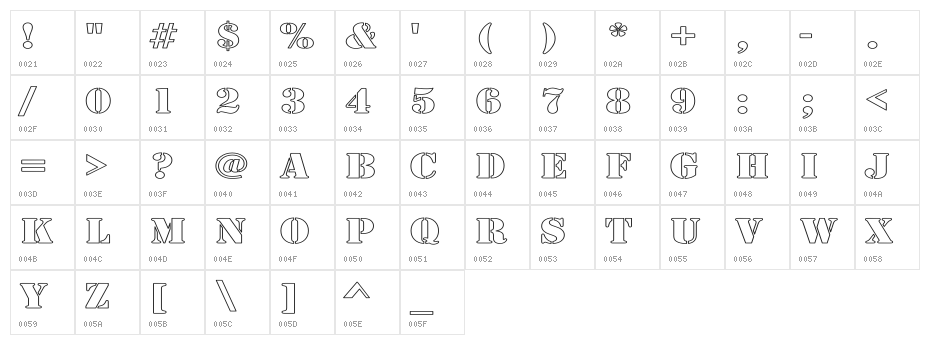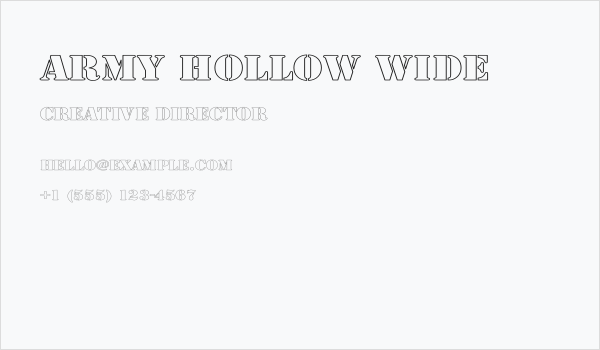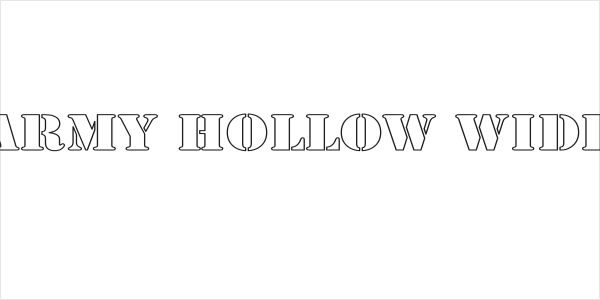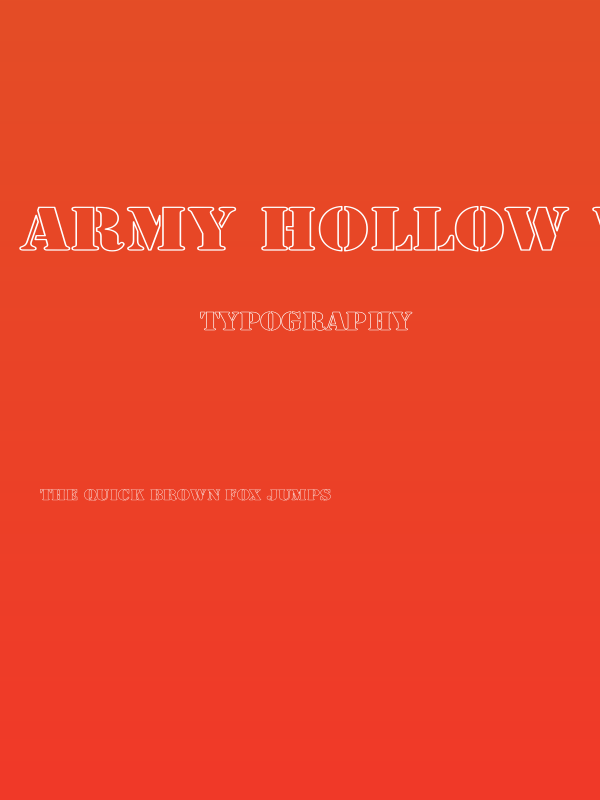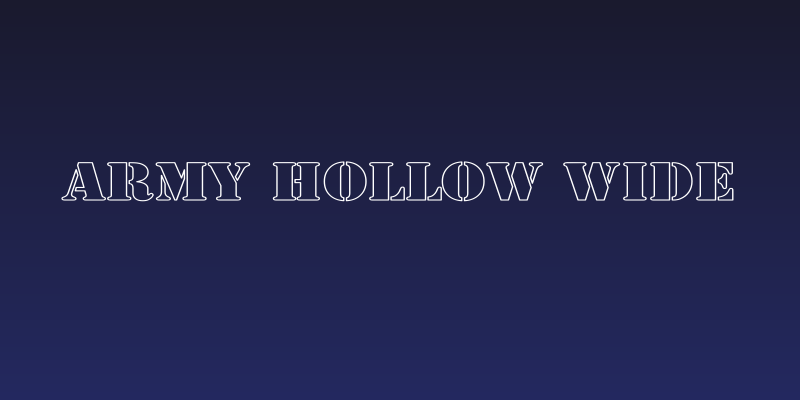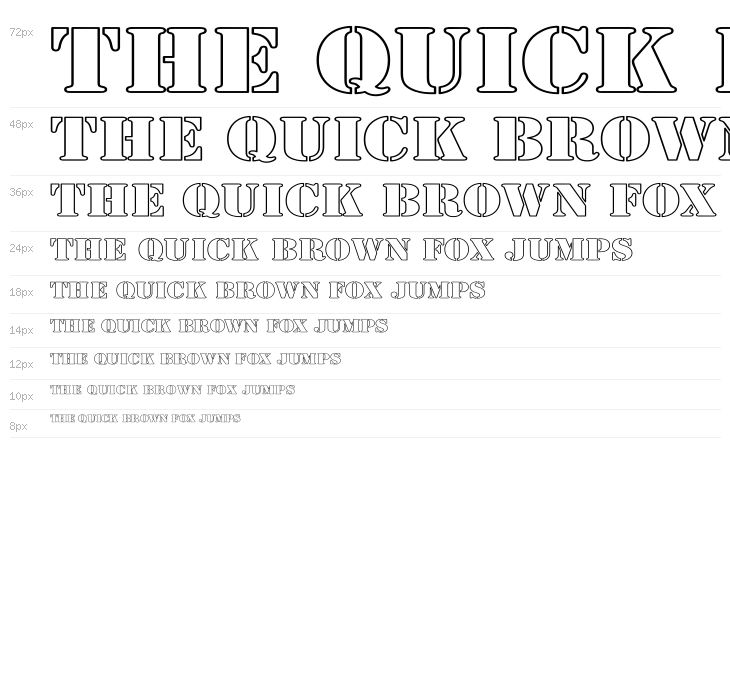
Army Hollow Wide Font
Army Hollow Wide Description
This font features a bold, hollow design with a wide stance, giving it a strong and commanding presence. The uppercase letters are uniform in height, with sharp, angular serifs that add a touch of sophistication. The hollow interior of each character creates a unique visual effect, making it stand out in any design. The numbers and special characters maintain the same bold, hollow style, ensuring consistency across all text elements. This font is ideal for projects that require a strong, impactful look.
| Proposed Projects | Ideal for military-themed designs, posters, headlines, and branding that requires a strong, impactful look. |